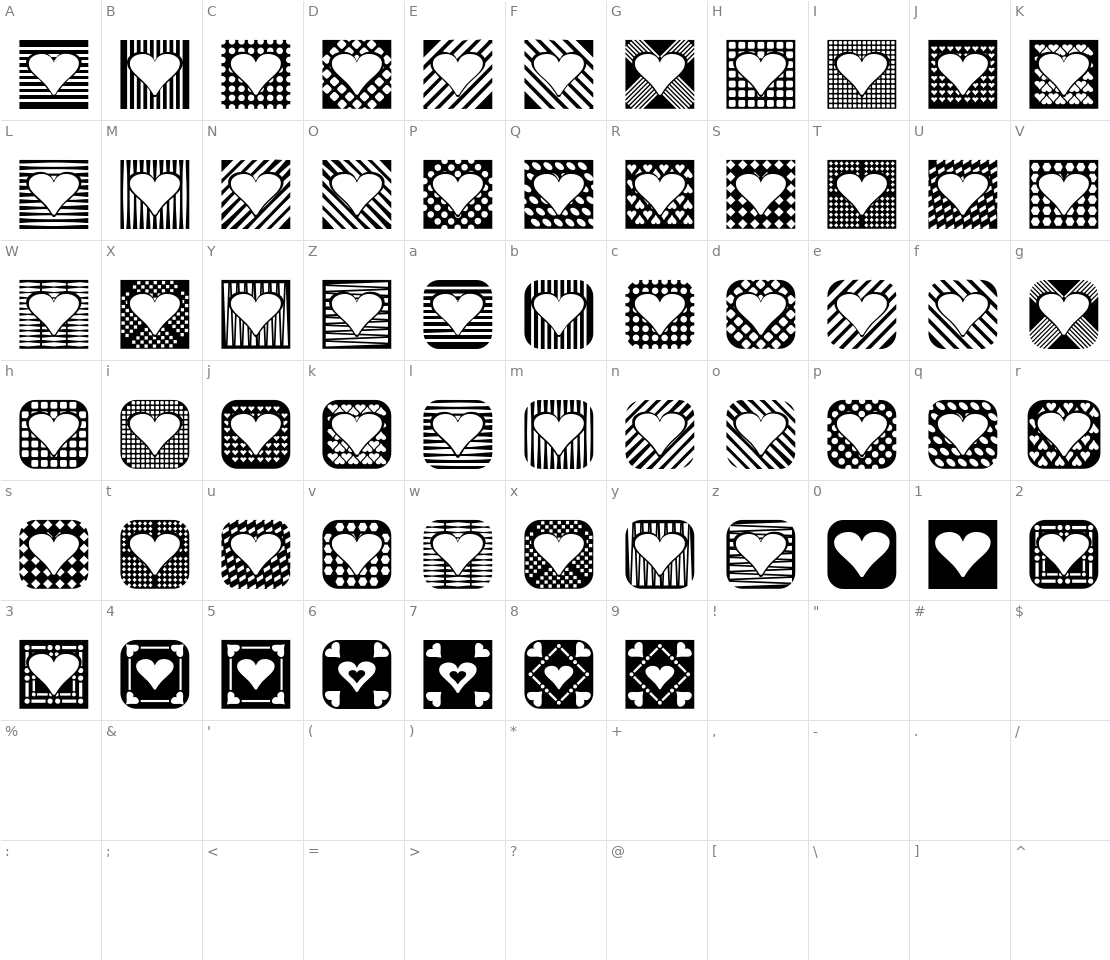
Heart Things 2
Heart Things 2 is a decorative dingbat font from Fonts & Things made up entirely of heart-shaped symbols and icons, many with patterned fills and ornamental details. It's designed for Valentine's Day cards, romantic stationery, wedding materials, and anywhere you need a quick library of love-themed graphic elements without opening an illustration app.